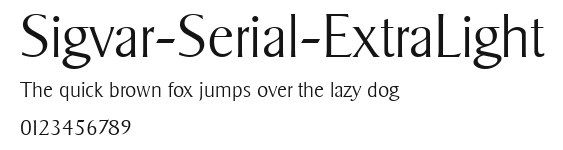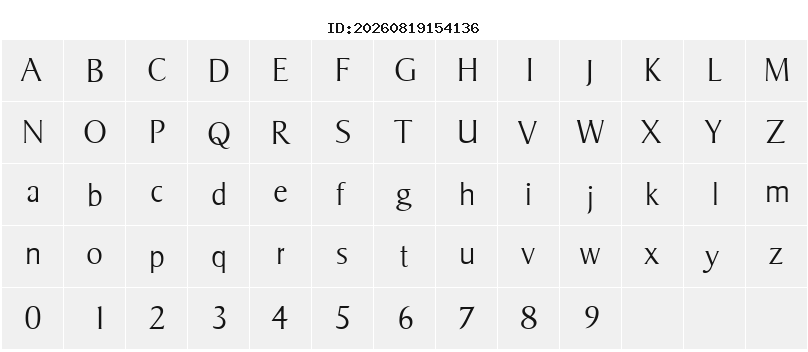
Sigvar-Serial-ExtraLight Preview
• Font Name: Sigvar-Serial-ExtraLight
• Full Font Name: Sigvar-Serial-ExtraLight-Regular
• PostScript Name: Sigvar-Serial-ExtraLight-Regular
About Sigvar-Serial-ExtraLight.ttf
Sigvar-Serial-ExtraLight.ttf is a modern, elegant sans-serif font designed for ultimate readability and visual harmony. Perfect for branding, headlines, web design, and print materials.